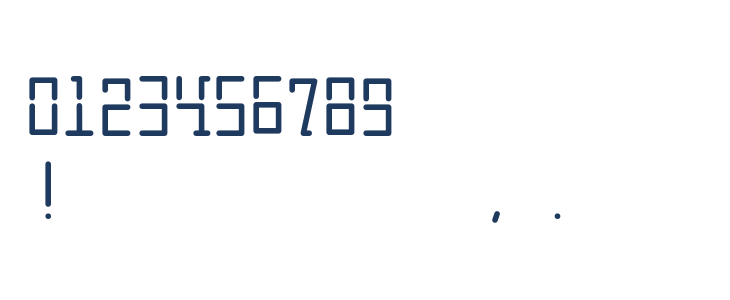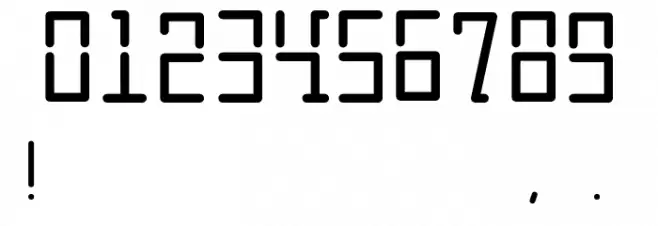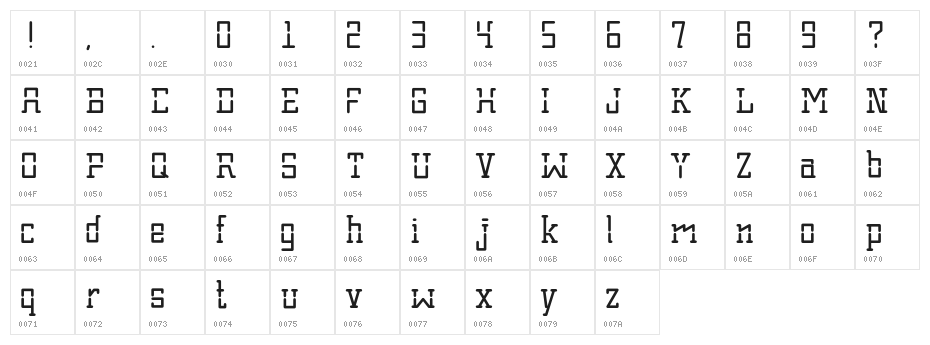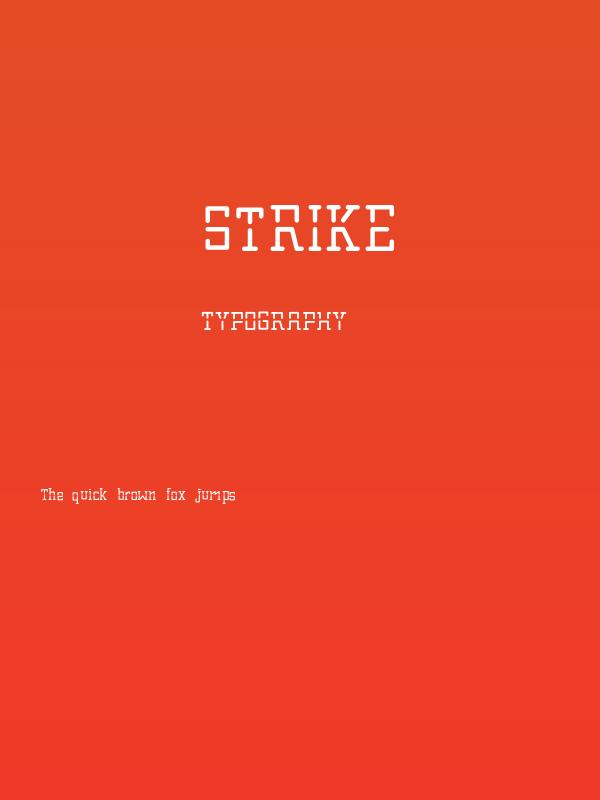
Strike Font
Strike Description
This font features a unique, geometric design with a modern twist. Each character is constructed with a consistent stroke width, giving it a monospaced appearance. The letters are formed with straight lines and sharp angles, creating a futuristic and technical feel. The uppercase and lowercase letters maintain a uniform height, enhancing readability. The numerals and special characters follow the same design principles, ensuring a cohesive look across all elements. This font's distinct style makes it stand out, while its clean lines ensure clarity and legibility.
Emma_Studios
| Proposed Projects | Ideal for tech branding, digital interfaces, and modern poster designs. |